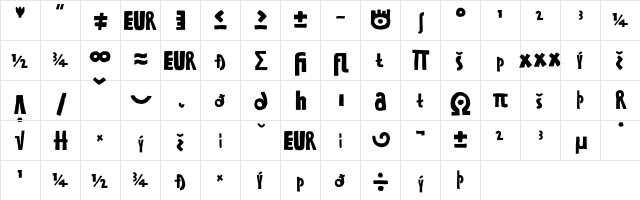
Kurt BoldExpert
Design Context for Kurt Typeface
Kurt takes a measured approach to typography — its balanced proportions and neutral character make it a reliable workhorse for both digital and print work. Its bold stroke weight gives it real presence on the page.
Pro Tip: Pair Kurt with a font of contrasting weight or personality to build a more expressive typographic hierarchy.